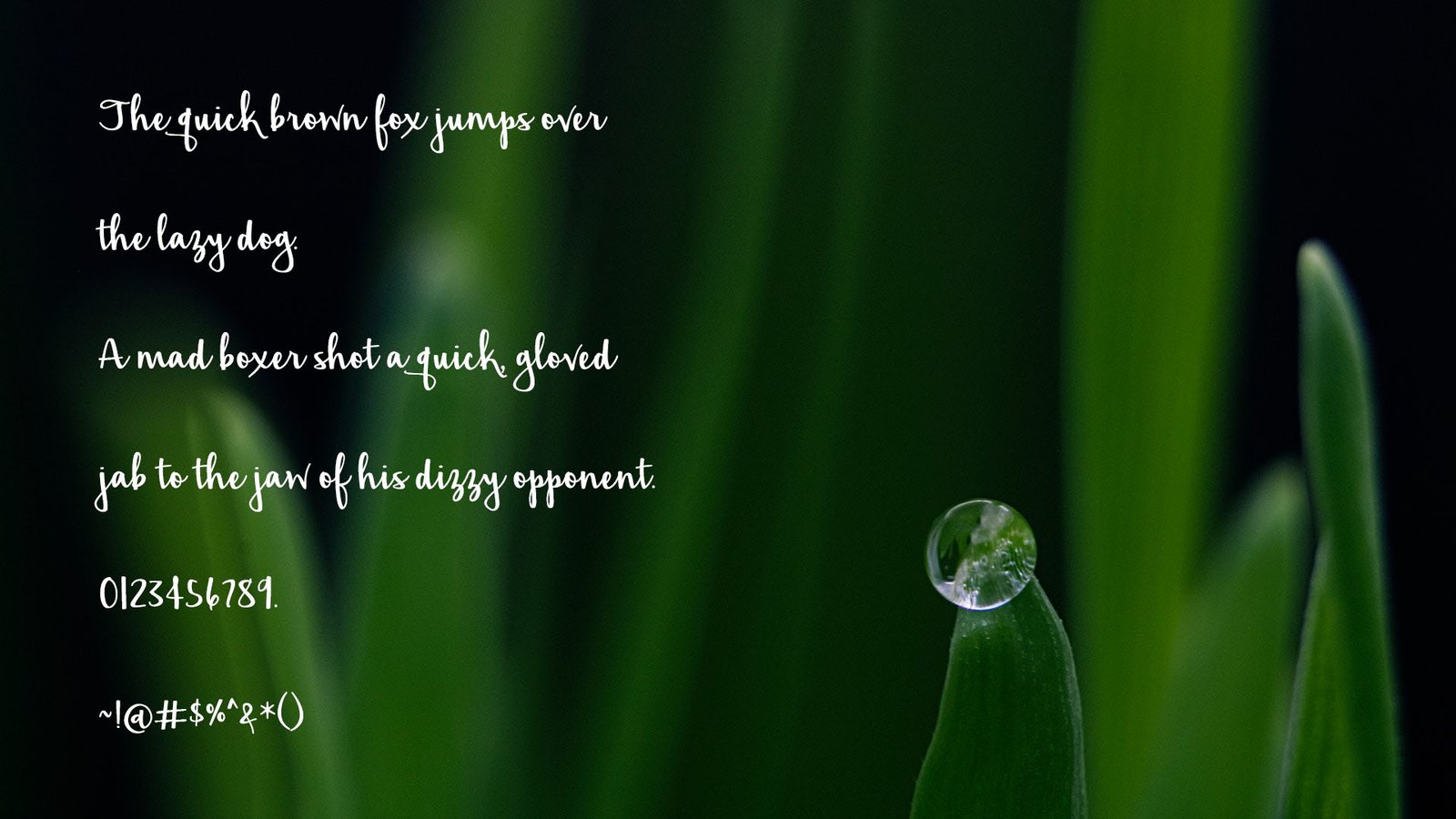
Brittney’s the founder of Brittney Murphy Design, Created this smooth Handwritten Typeface in 2016. This typeface comes in two weights standard Regular and Light Regular versions. Hickory Jack consists of 350 glyphs, consisting of both uppercase, lowercase, punctuation, symbols, and special characters.
At first Brittney’s experimentation, the font with the use of brushstrokes script letters and felt that her writing looked like old script handwritten, so, for this reason, this was unknown to others. At the same time, she created a new character called hickory jack the pirate.
| Name | Hickory Jack Font |
| Designer | Brittney Murphy |